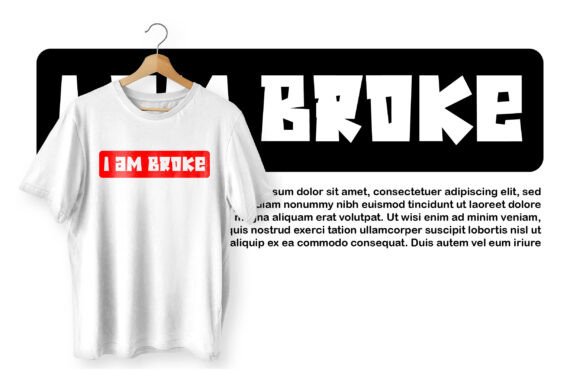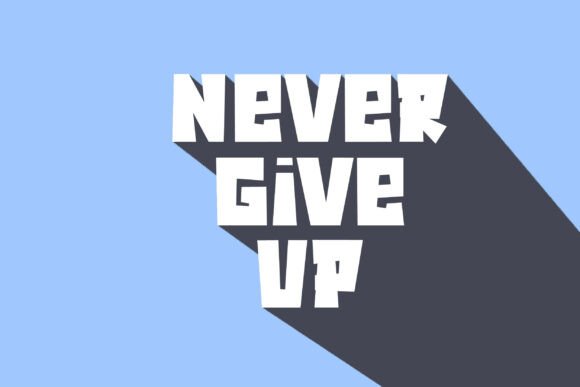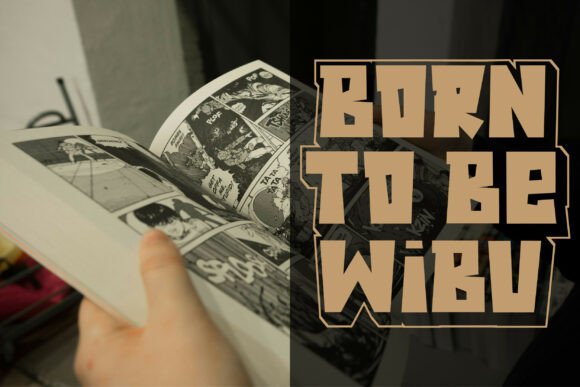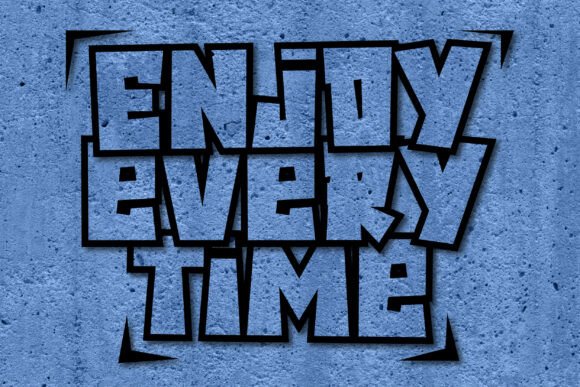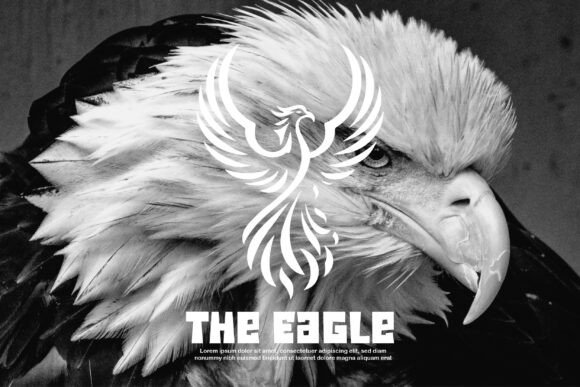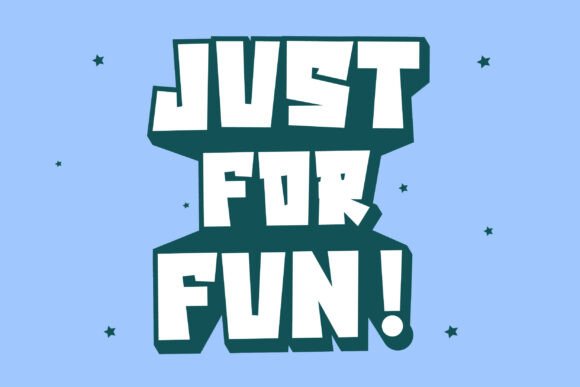
The Ultimate Font for Playful Designs: Broke Boys
Have you ever been in the middle of a design project, and suddenly, you just can’t seem to find the right font? I recall a particularly frustrating experience when a client asked for a logo that was both professional and playful. I scoured the internet for hours, but nothing seemed quite right. That was until I stumbled upon Broke Boys, a charming Cartoon display font that instantly elevated my design game.
First Impressions: A Love at First Sight
As soon as I laid eyes on Broke Boys, I knew I had found what I was looking for. This delightful font is perfect for all professional branding projects, including logos, comics, watermarks, posters, branding, promotions, product packaging, and more. Each letter boasts a unique cartoon style design that adds a touch of whimsy to any project.
What I Love About Broke Boys ✨
- ✅ Unique cartoon style design that sets it apart from other fonts
- ✅ Highly versatile and suitable for various design projects
- ✅ Easy to read and understand, even in smaller sizes
- ⚠️ Some users might find the font too playful for certain projects
Broke Boys comes with a range of OpenType features, glyphs, and stylistic alternates that can elevate your designs. Experiment with different variations to find the perfect look for your project. You can access these features in compatible design software, such as Adobe Photoshop and Illustrator.
The Story Behind Broke Boys
Broke Boys was designed with the intention of creating a unique, playful font that would bring a smile to people’s faces. The designer, inspired by classic cartoons and comics, aimed to craft a font that would be both fun and professional. The result is a charming font that’s perfect for a wide range of design projects.
Q: What is Broke Boys font?
A: Broke Boys is a Cartoon display font designed for professional branding projects, such as logos, comics, watermarks, posters, and more.